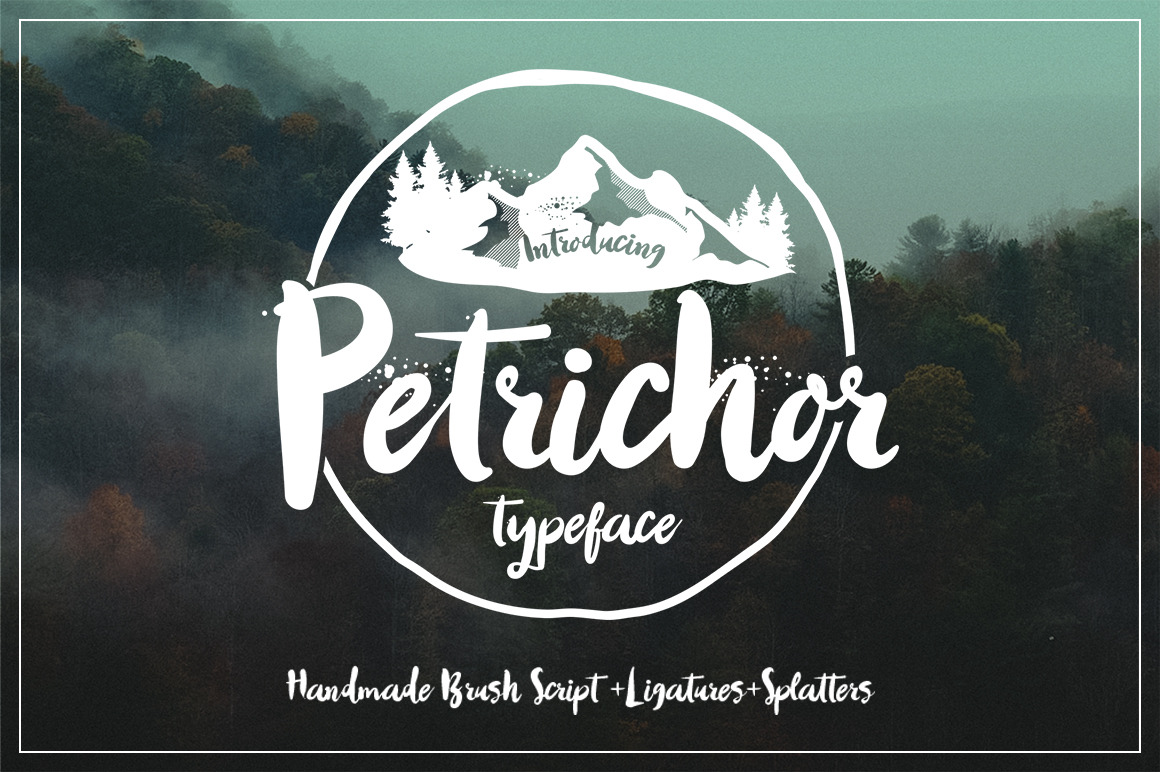
Petrichor Typeface
Petrichor is hand-drawn font that manually painted by brush. I've updated with new style.
Petrichor includes lowercase, uppercase, punctuation, numeral, ligatures, and splatter brush. This font is best fit for vintage design theme, handcraft good promotional, DIY greetings card, and many more.